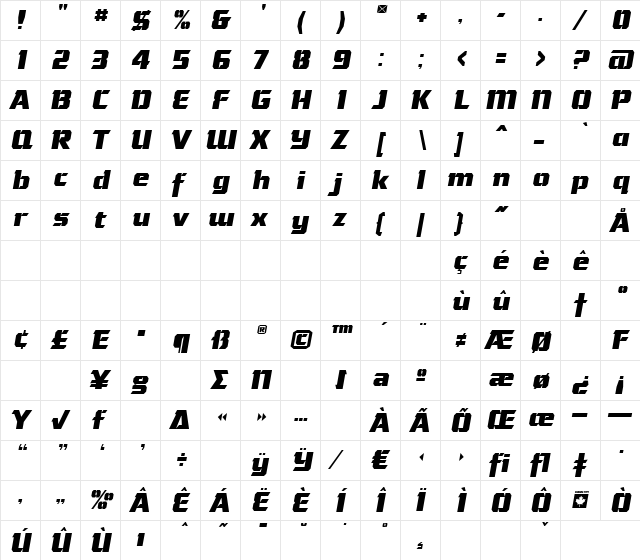
Gamer Bold Italic
Design Context for Gamer Typeface
Gamer offers clean, dependable letterforms without strong stylistic allegiance, making it a practical choice for designers who need flexibility. The slanted form adds forward momentum and visual energy. The heavy weight commands attention and anchors typographic hierarchies.
Pro Tip: Try Gamer for annotation and caption copy alongside an upright companion — the contrast in angle creates a dynamic but ordered typographic system.